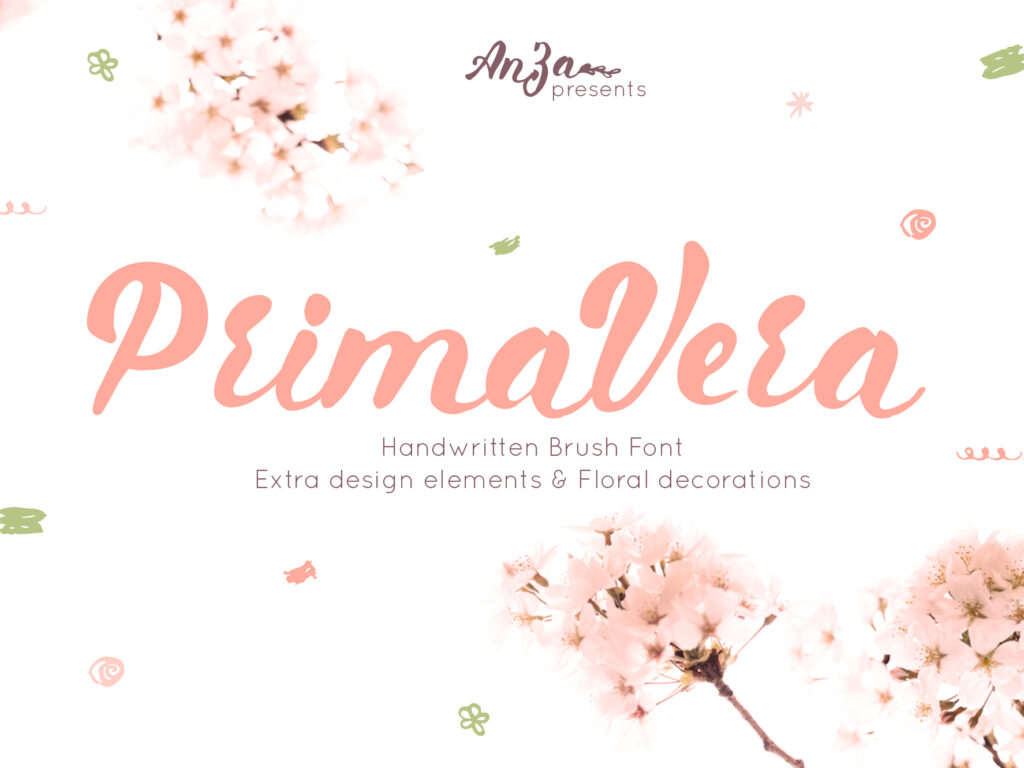
Are you feeling the taste and smell of coming spring? I do! So let me introduce my new Primavera font as reflection of my thoughts. This font will help you to create special and touching typographical design for every day or the happiest day in life.
Primavera Handwritten Brush Free Font